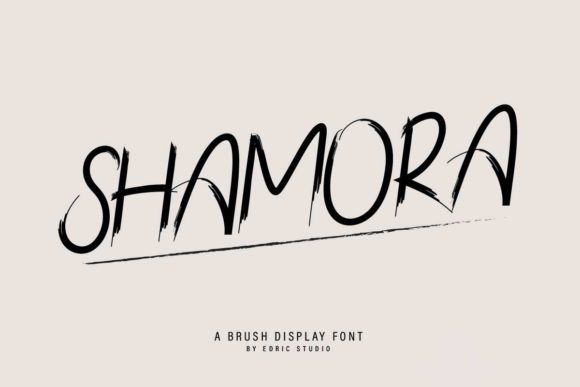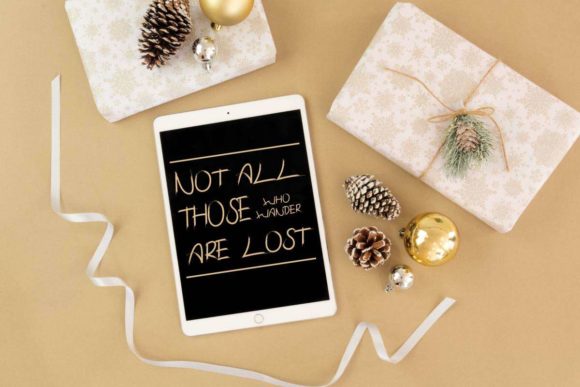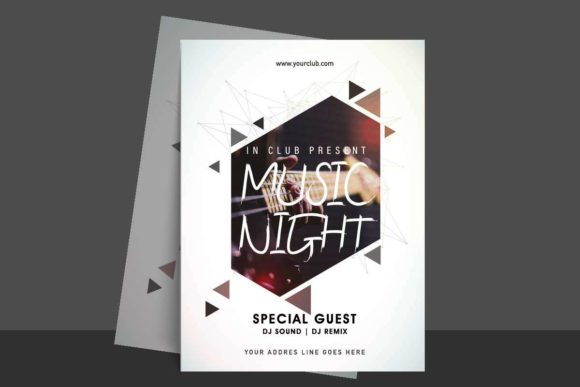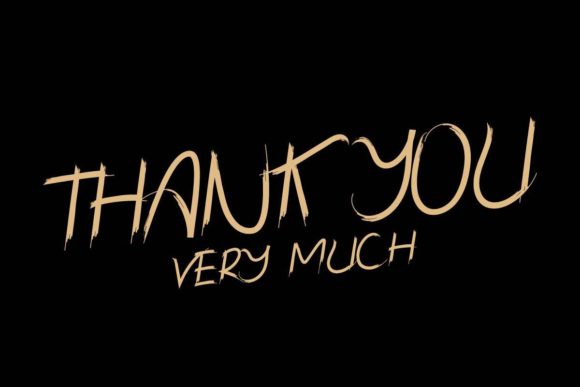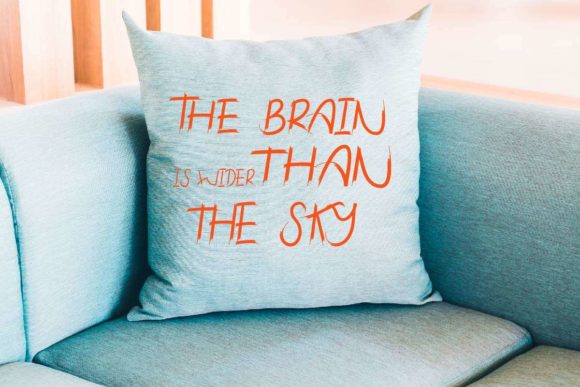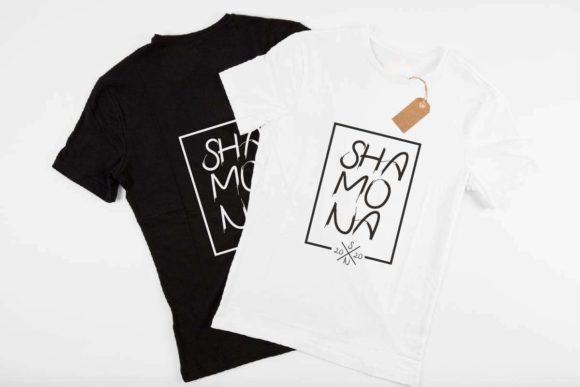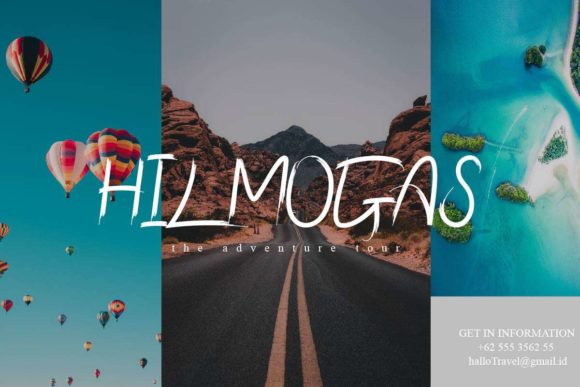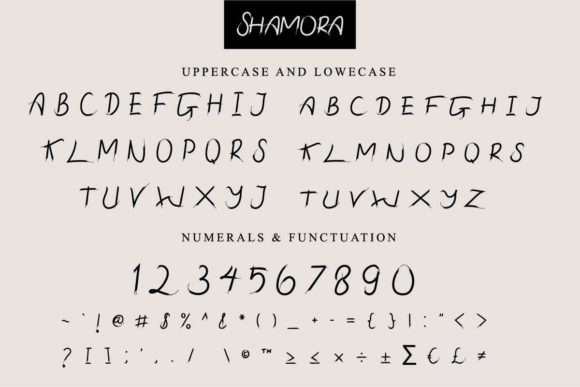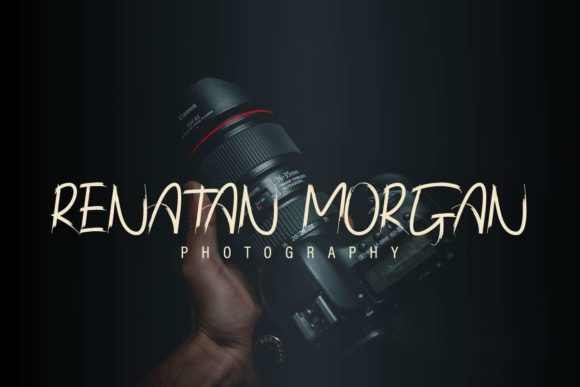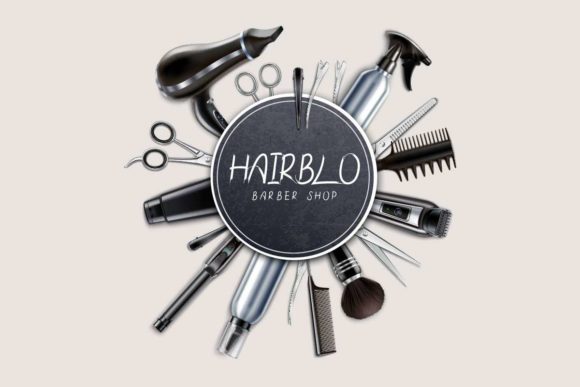
Shamora Font
About Shamora Font
Shamora feels equally charming and elegant. This fantastic handwritten font is best suited for headlines of all sizes, as well as for blocks of text that have both maximum and minimum variations.